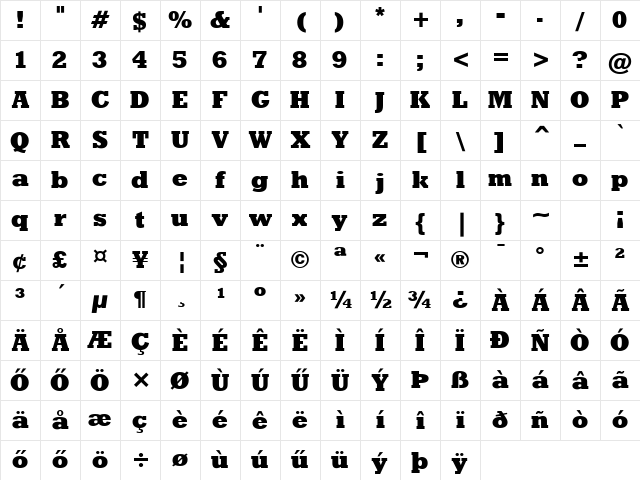
Geometric-Slabserif712 ExHU Extra Bold
Design Context for Geometric-Slabserif712 ExHU
Geometric-Slabserif712 ExHU features prominent, blocky serifs that give it a confident, grounded presence - equally at home in editorial settings and bold branding work. Its bold stroke weight gives it real presence on the page.
Pro Tip: Use Geometric-Slabserif712 ExHU for headlines and subheadings where its slab serifs can make an impression. It also holds up well in mid-size body copy thanks to its sturdy construction.